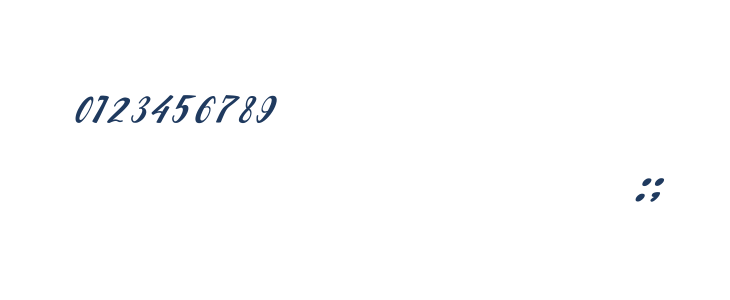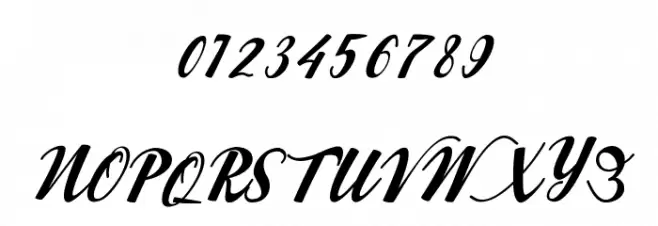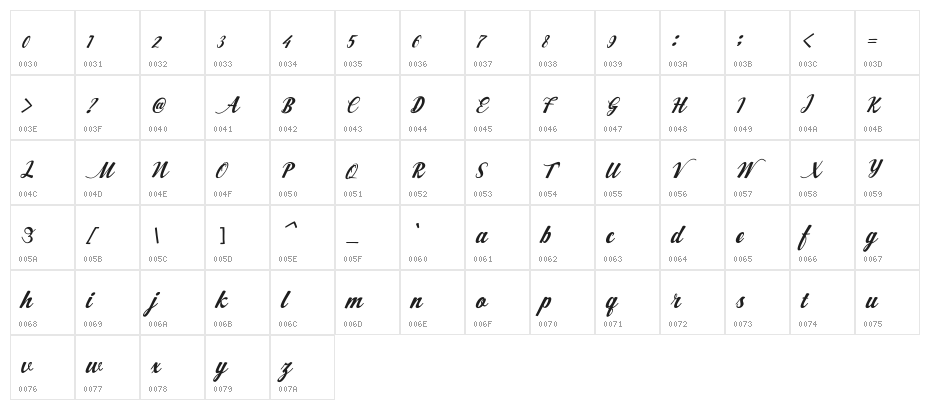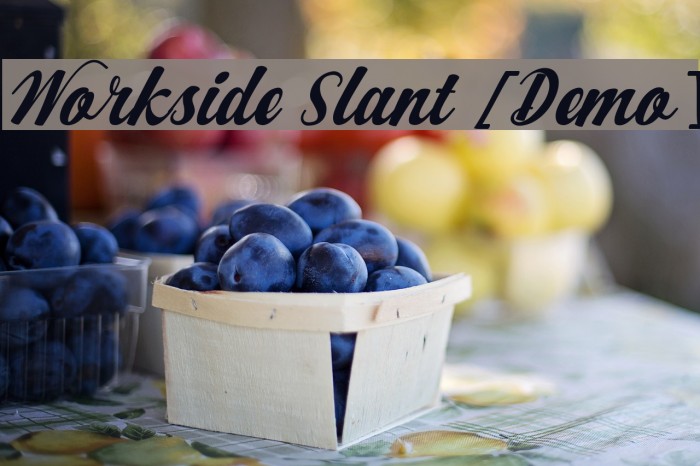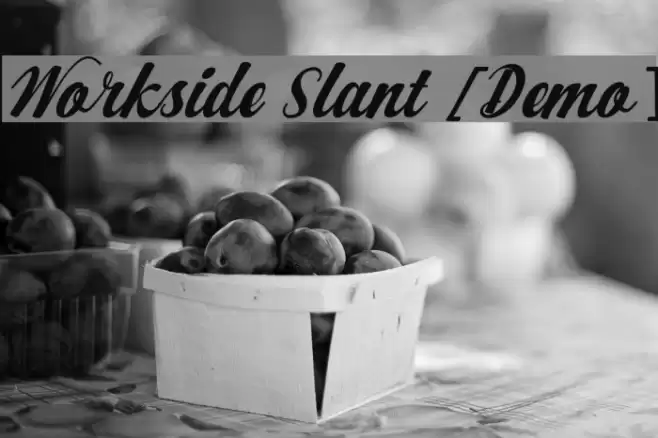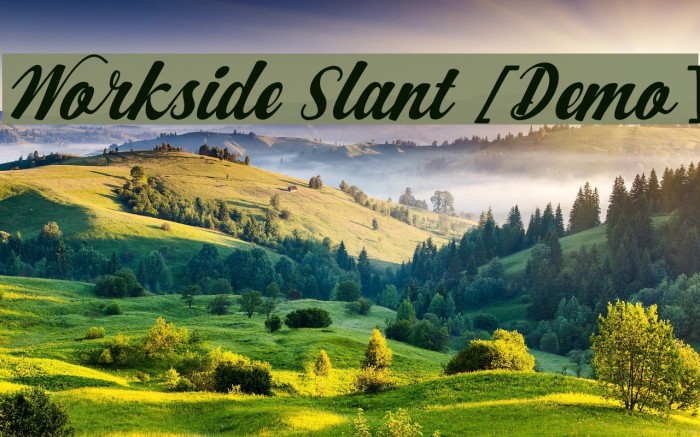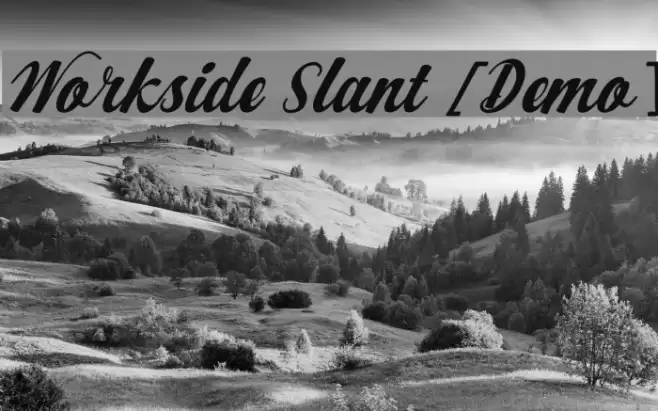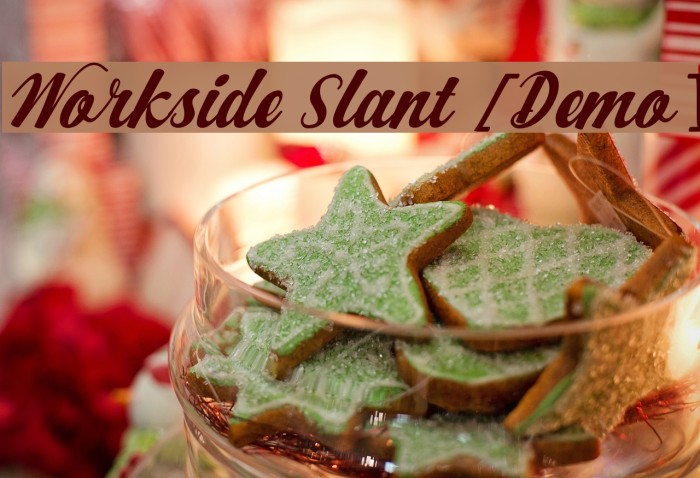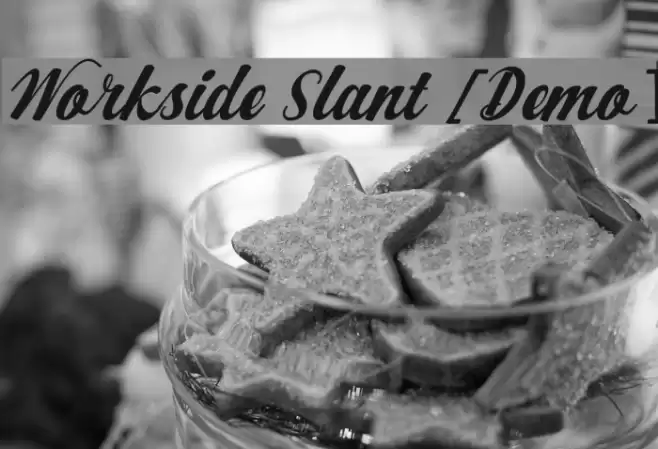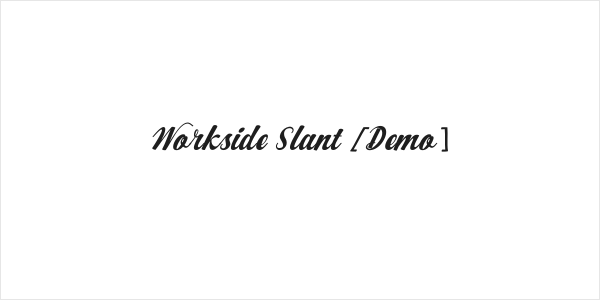
Workside Slant [Demo] Font
Workside Slant [Demo] Description
This font features an elegant, cursive style with a pronounced slant, giving it a dynamic and sophisticated appearance. The uppercase letters are characterized by sweeping curves and flourishes, while the lowercase letters maintain a consistent flow with slightly less ornamentation. The numerals are designed to complement the overall script style, maintaining the same slanted and fluid characteristics. The special characters are integrated seamlessly, ensuring a cohesive look across all glyphs. This font exudes a sense of elegance and formality, making it suitable for upscale and refined applications.
| Use Case | Logos, Invitations, Headlines |
| Proposed Projects | Ideal for wedding invitations, luxury branding, elegant signage, and formal event materials. |